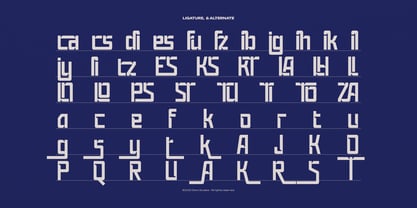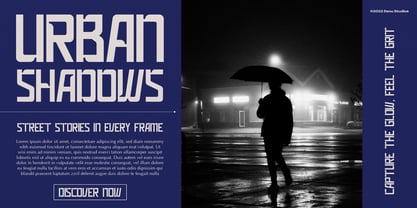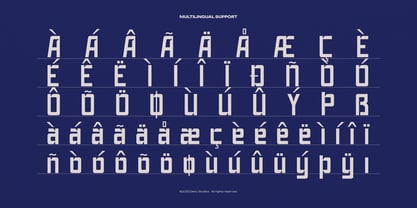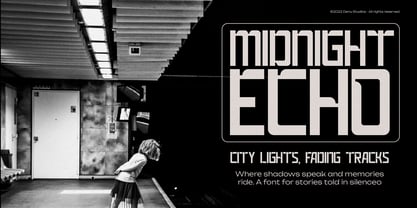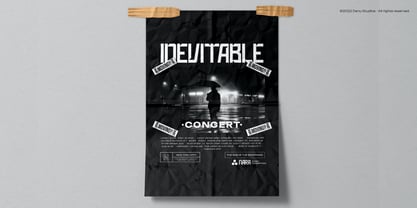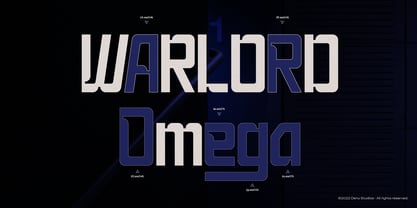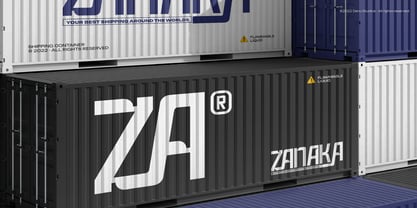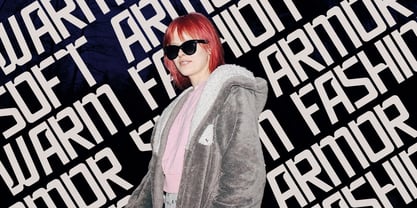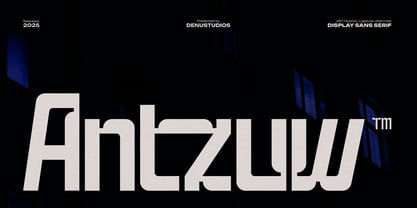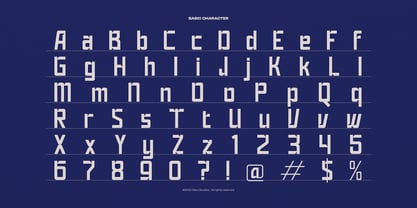
Antzuw
by Denustudio
The Antzuw Font Family was designed by Dede Nugraha and published by Denustudio. Antzuw contains 2 styles and family package options. More about this family
Antzuw | Display Sans Serif, from Denustudios, suitable for any projects such as: logos, branding projects, homeware designs, product packaging, mugs, quotes, posters, shopping bags, t-shirts, book covers, name card, invitation cards, greeting cards, label, photography, watermark, special events, and all your other lovely projects that need Display Sans Serif a taste.
• Regular and Italic
• Alternate and Ligature
• Fonts include multilingual support